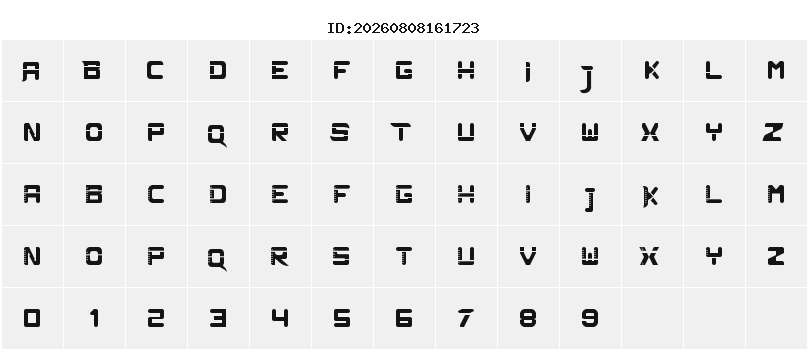
Pluto Revolution Preview
• Font Name: Pluto Revolution
• Designer: BryanGu
• Description: “Pluto 0” was built with FontStruct “Pluto 0” is based on “Pluto Androids” by “BryanGu” (http://fontstruct.com/fontstructors/bryangu), which is based on “Pluto” by “BryanGu” (http://fontstruct.com/fontstructors/bryangu)
Pluto Revolution.ttf is a modern, elegant sans-serif font designed for ultimate readability and visual harmony. Perfect for branding, headlines, web design, and print materials.